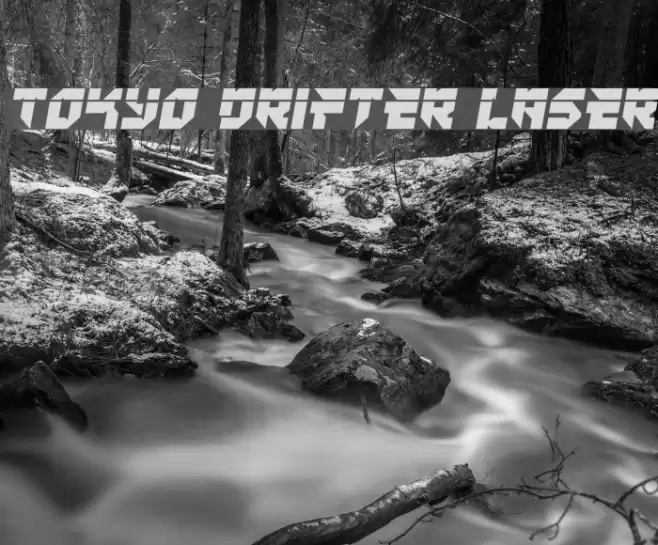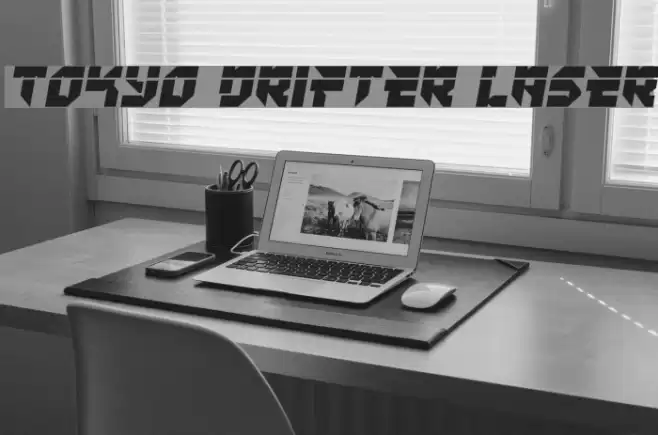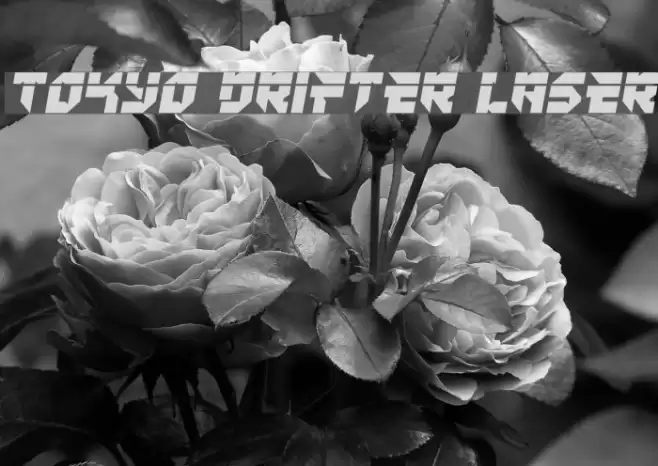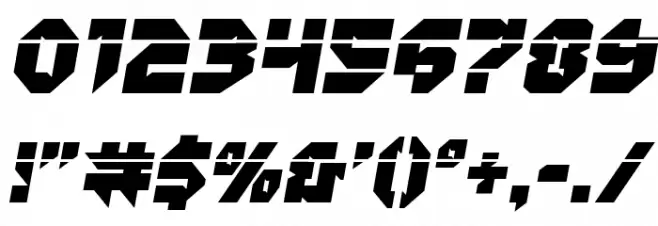
Tokyo Drifter Laser Font
Tokyo Drifter Laser Description
This font features a bold, futuristic design with angular and geometric shapes that create a dynamic and edgy appearance. The characters are constructed with sharp edges and a blocky style, giving it a distinct, modern look. The uppercase and lowercase letters maintain a consistent style, with the lowercase being slightly smaller but equally bold. The numbers and special characters follow the same design principles, ensuring uniformity across the font. The overall aesthetic is reminiscent of digital or sci-fi themes, making it ideal for projects that require a strong, impactful visual presence.
A bold, futuristic font with angular, geometric shapes and a digital aesthetic from Uncategorized fonts.
- Proposed Projects: Ideal for sci-fi movie posters, video game titles, tech branding, and futuristic-themed designs.